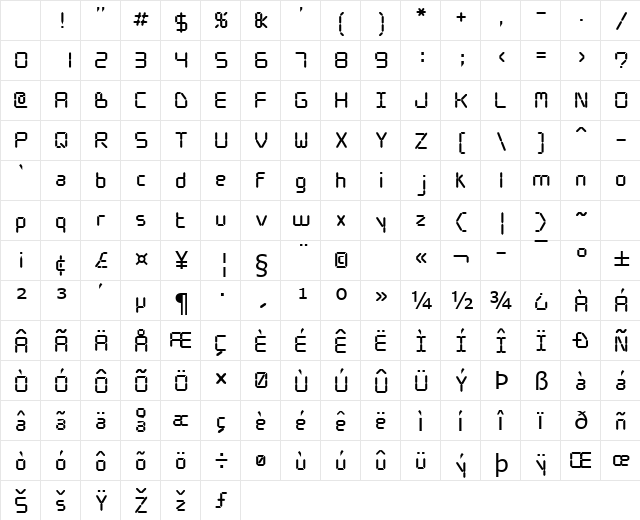
Complete WW Digital Regular glyph index. Displaying only characters natively supported by WW Digital Regular font.
WW Digital has a distinctly futuristic character, with geometric precision and clean angles that feel at home in technology, gaming, and sci-fi contexts.
Pro Tip: Try WW Digital with generous letter-spacing in UI labels and navigation - the geometric forms benefit from room to breathe.